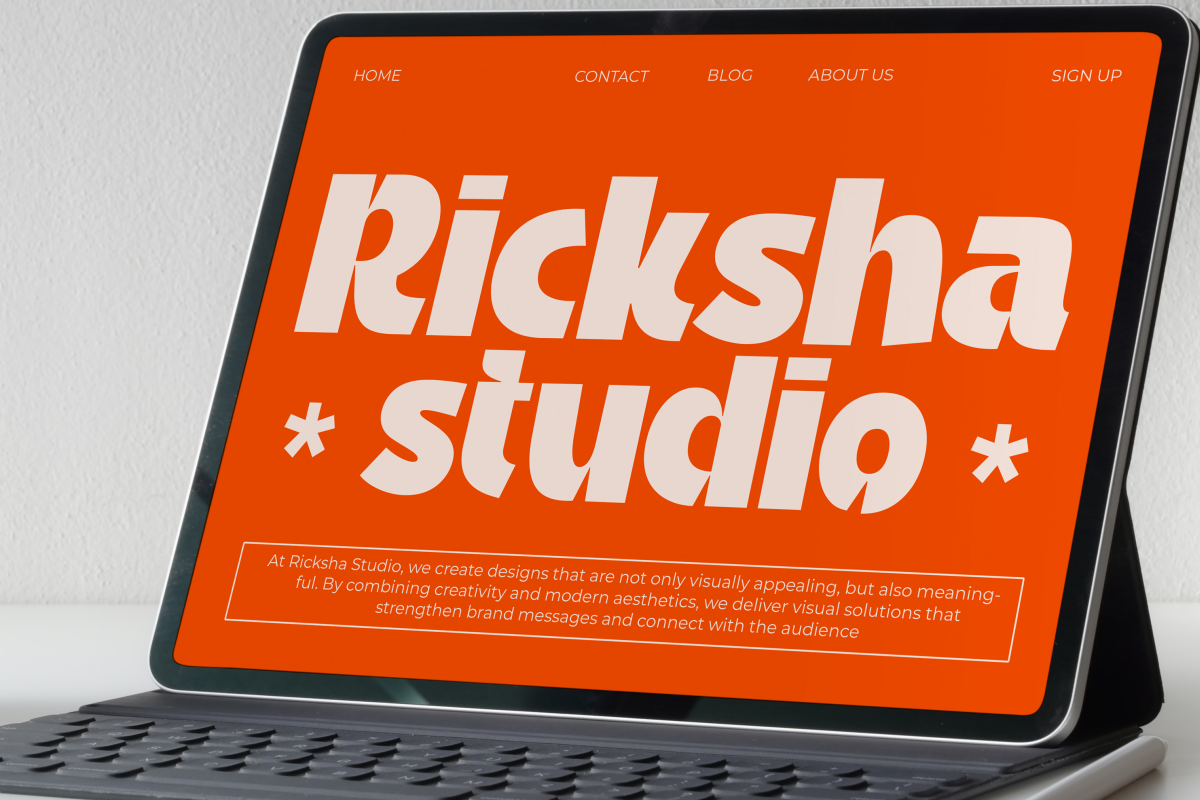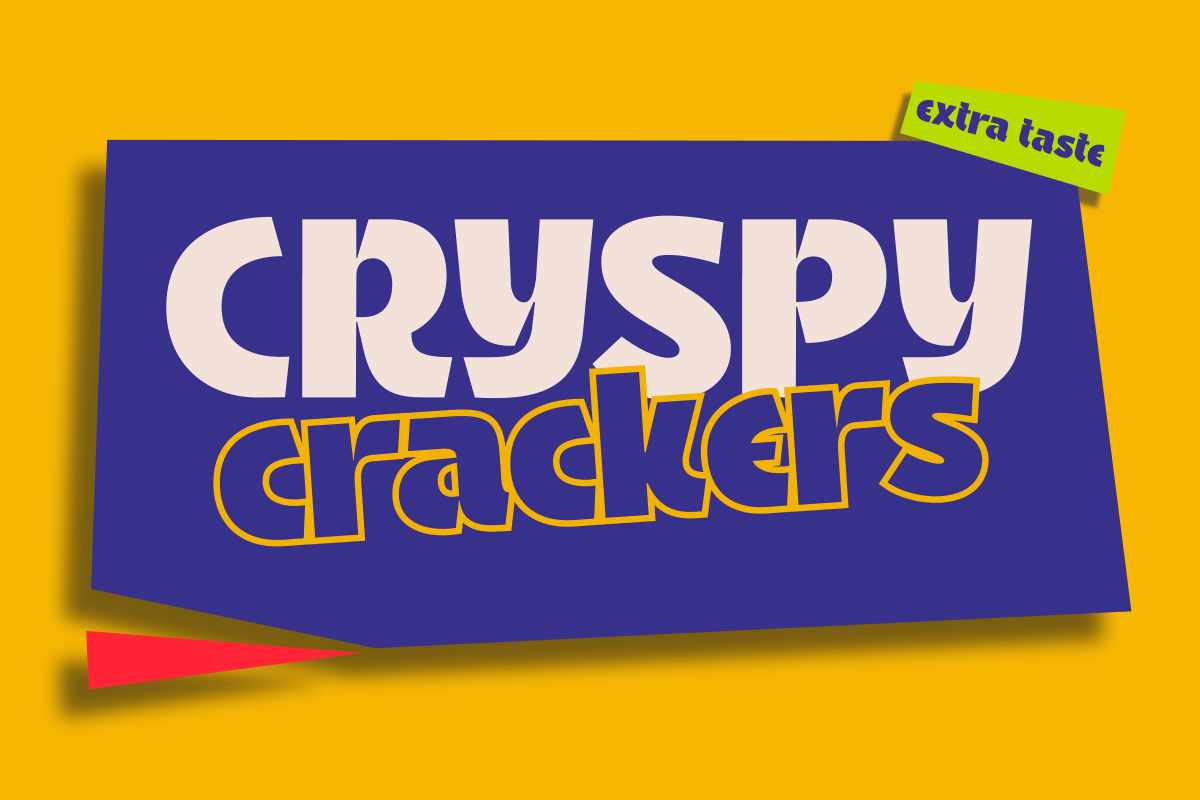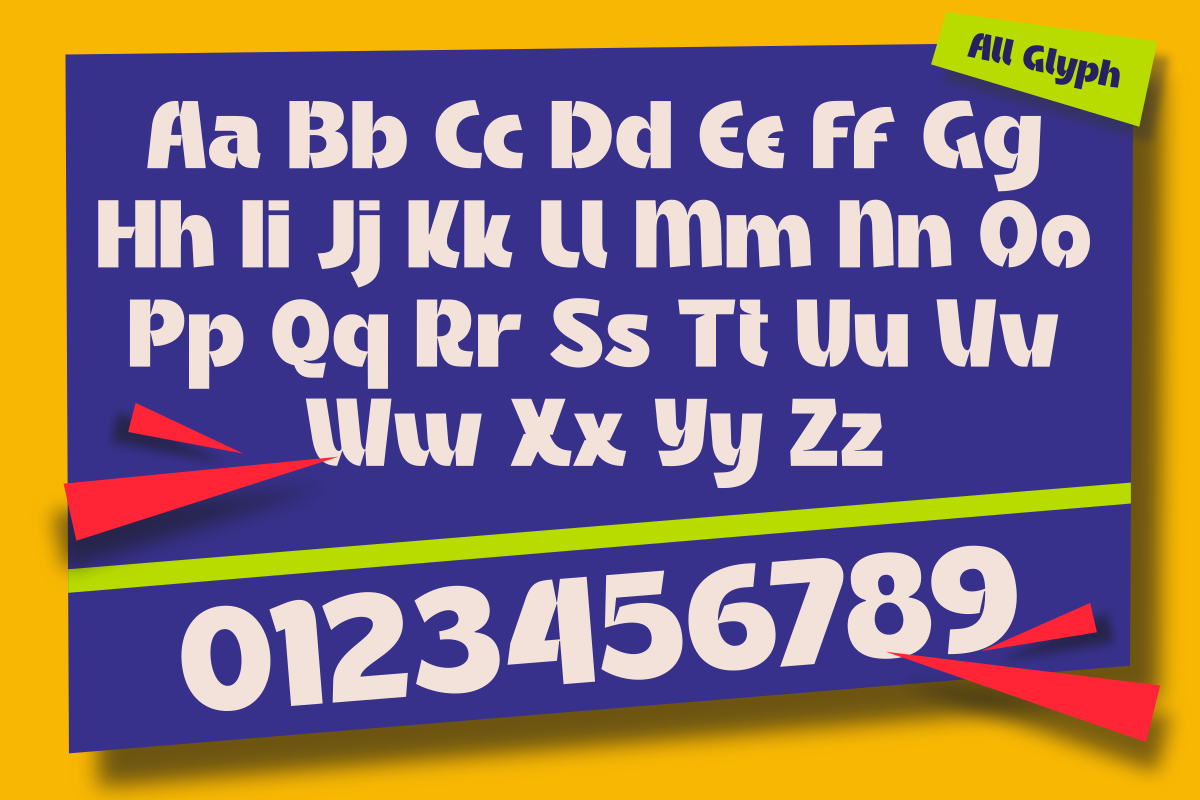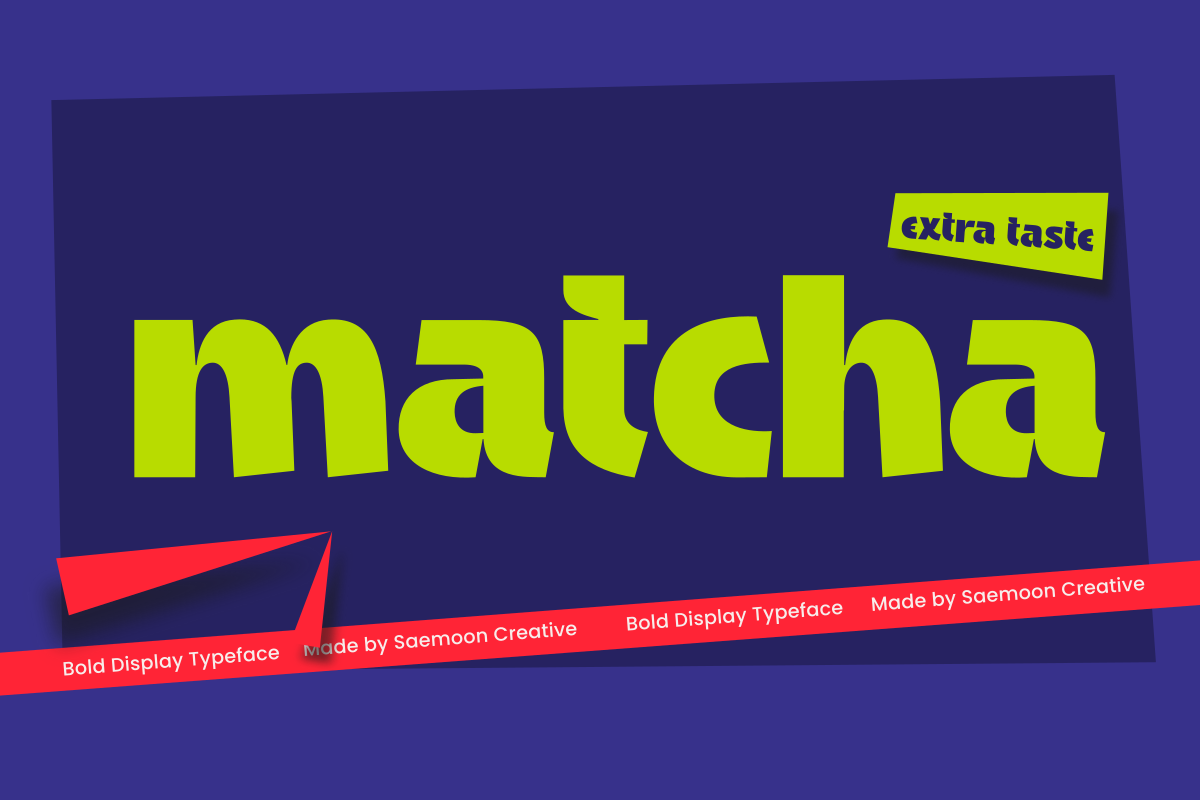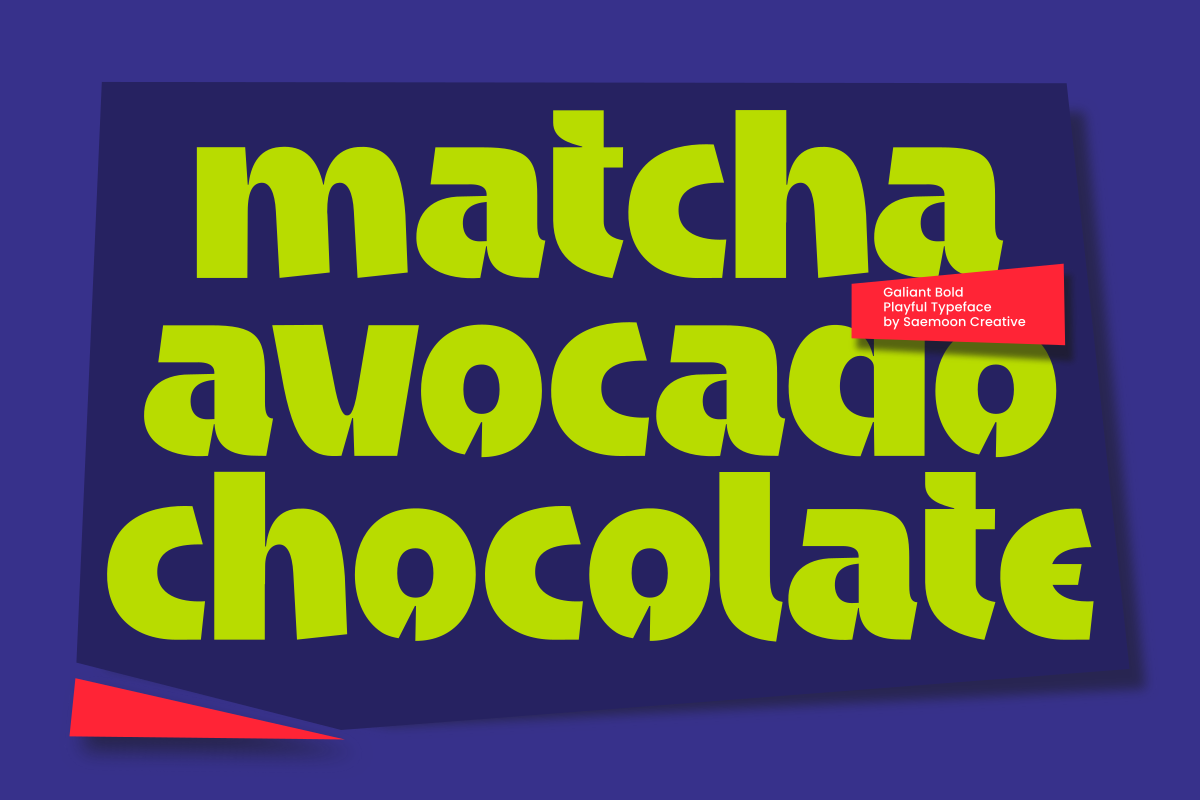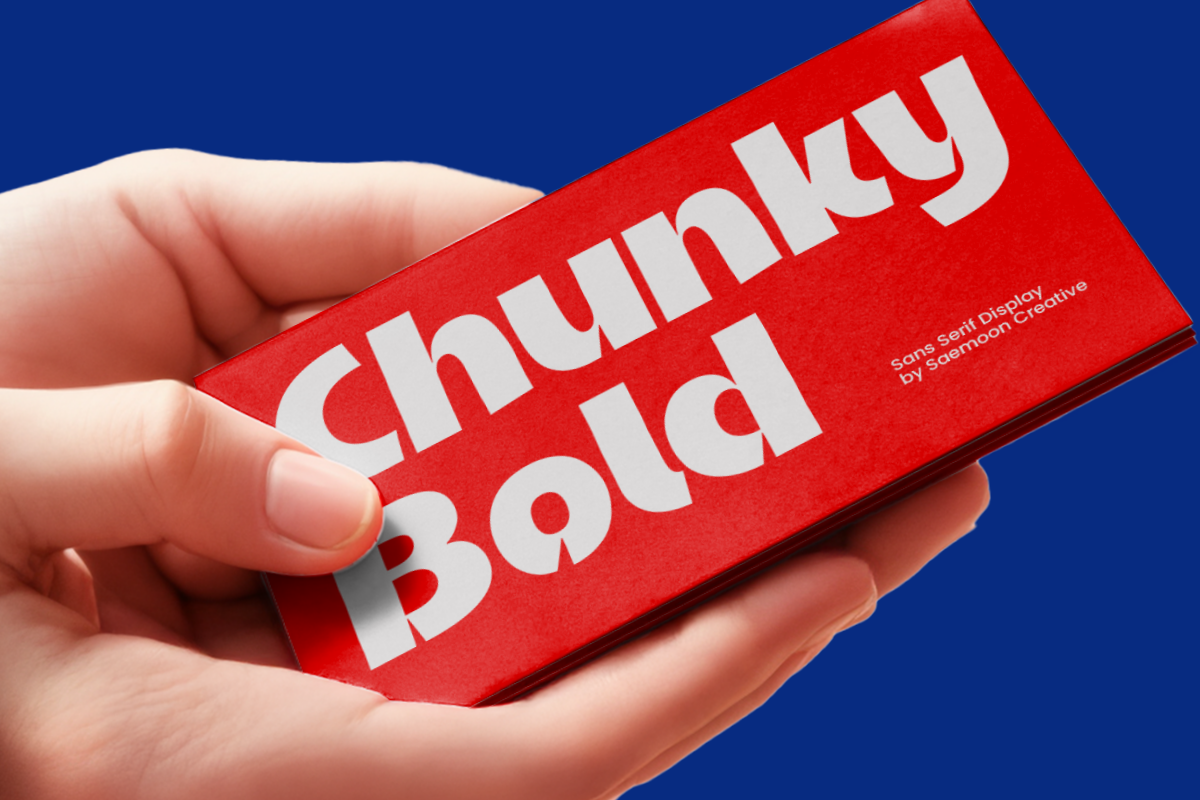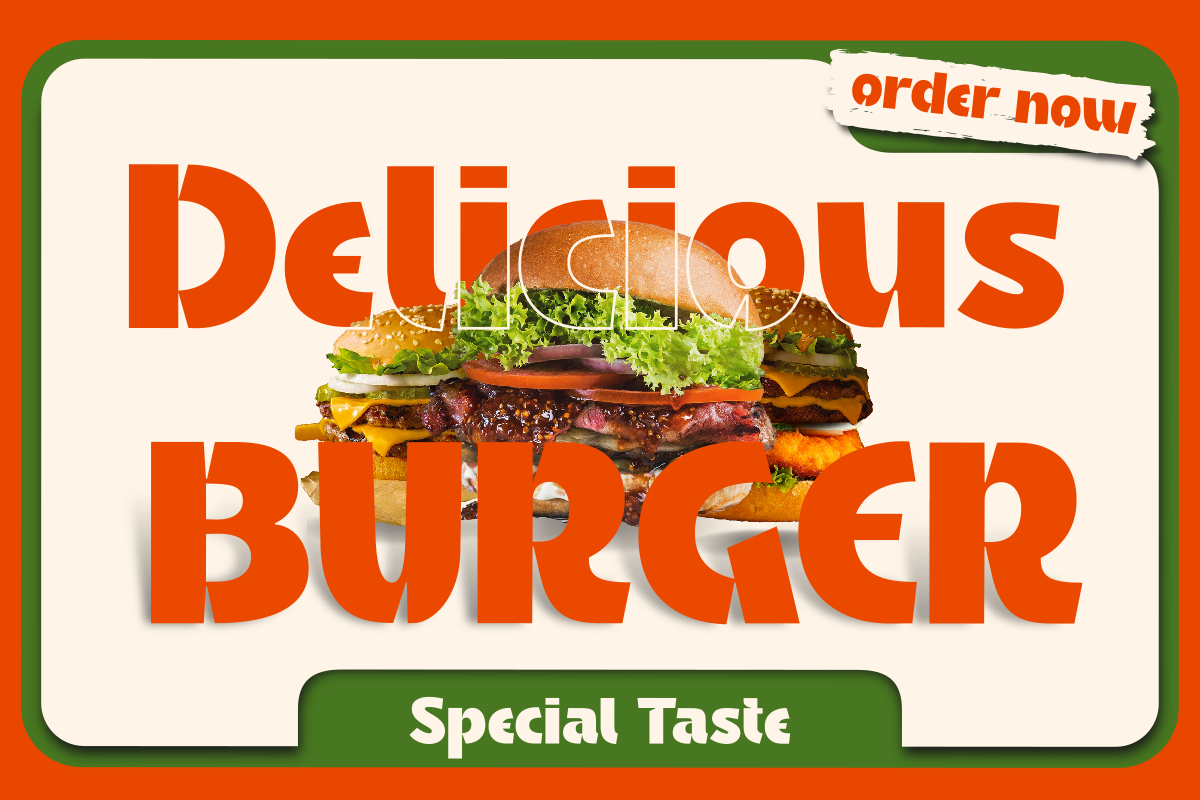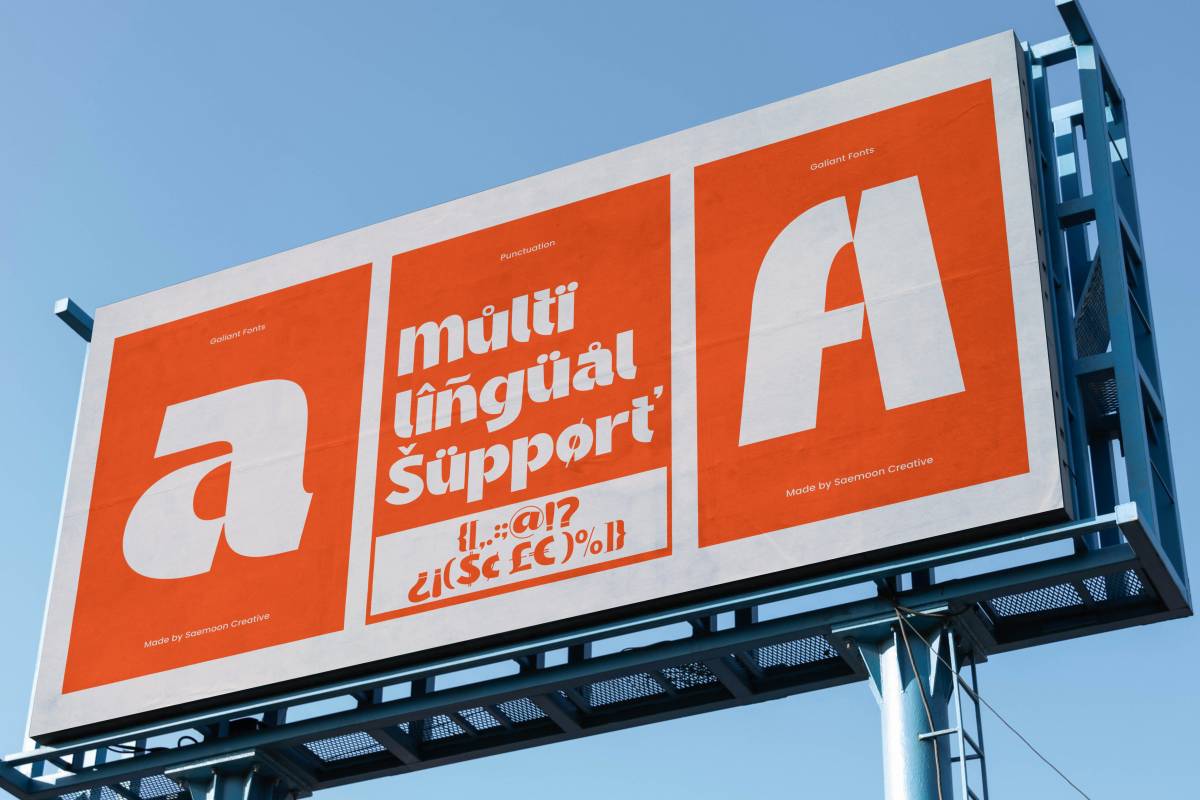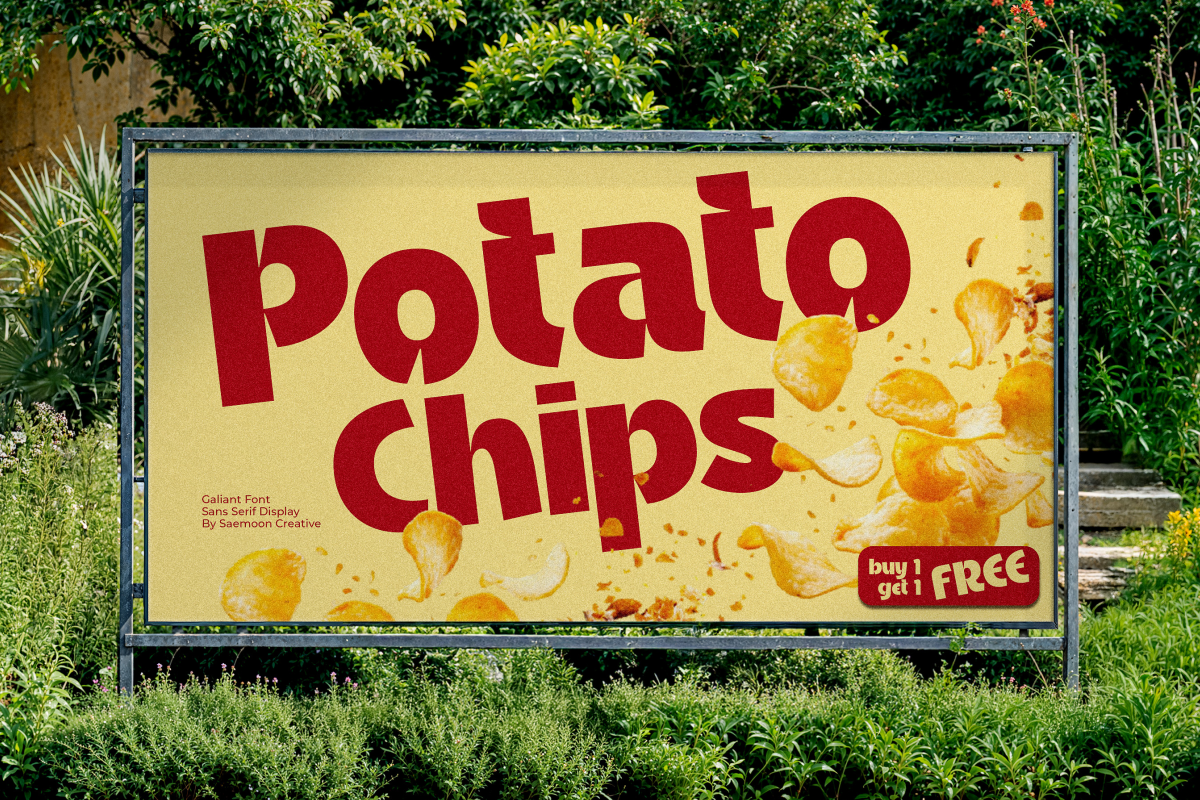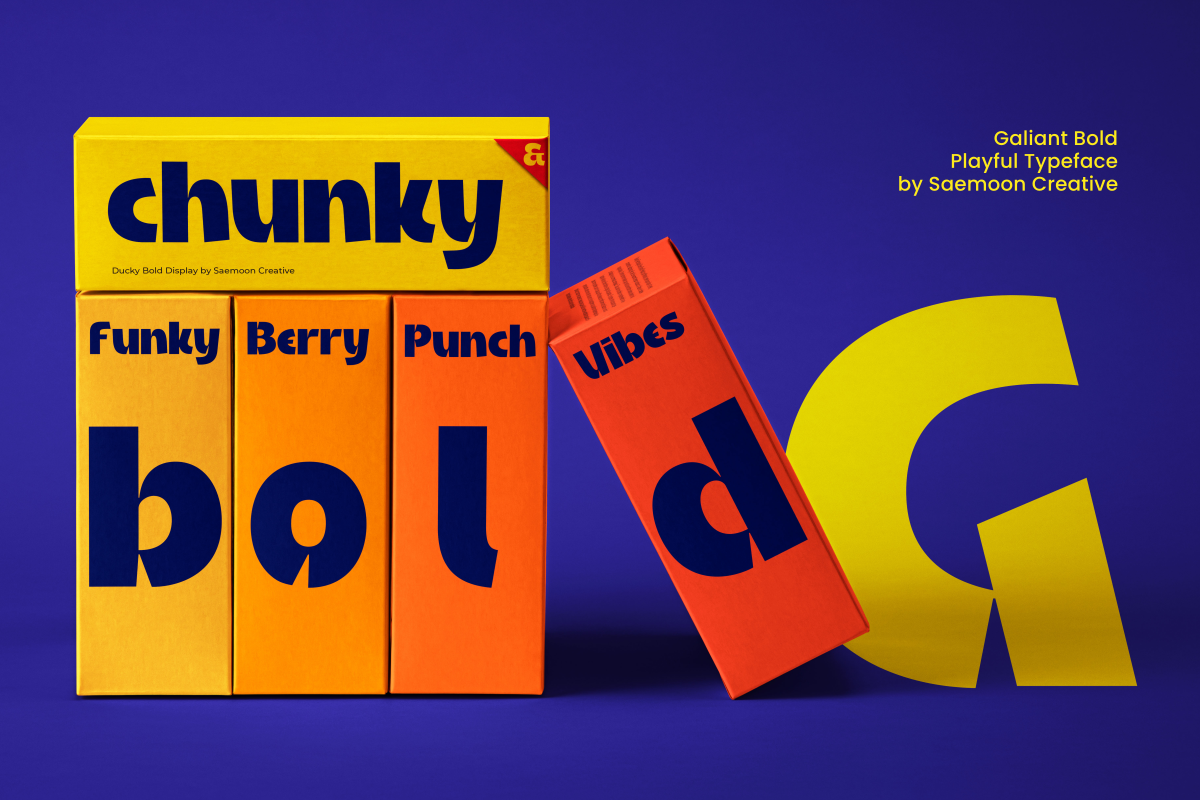
Galiant
Galiant – Bold Display Sans Serif Typeface
Galiant is a bold display sans serif typeface designed for strong visual impact and modern branding. Its chunky shapes and confident character make it ideal for logos, headlines, posters, packaging, and eye-catching designs.
Uppercase & lowercase
Numerals & punctuation